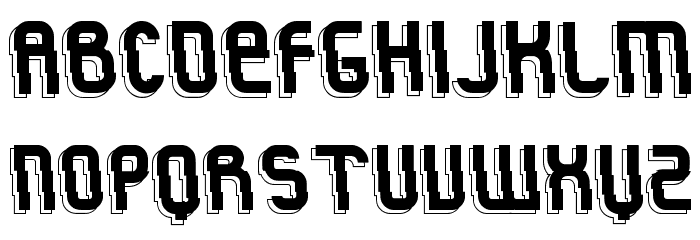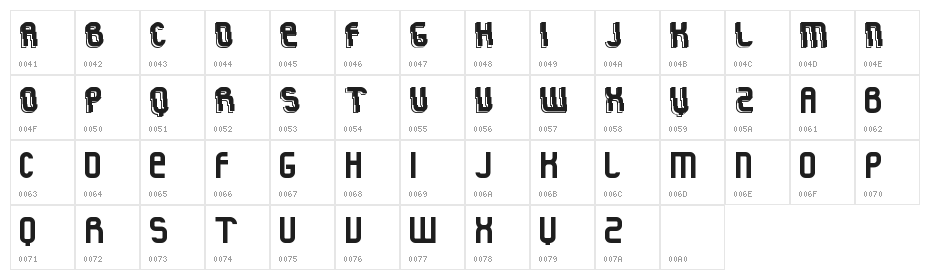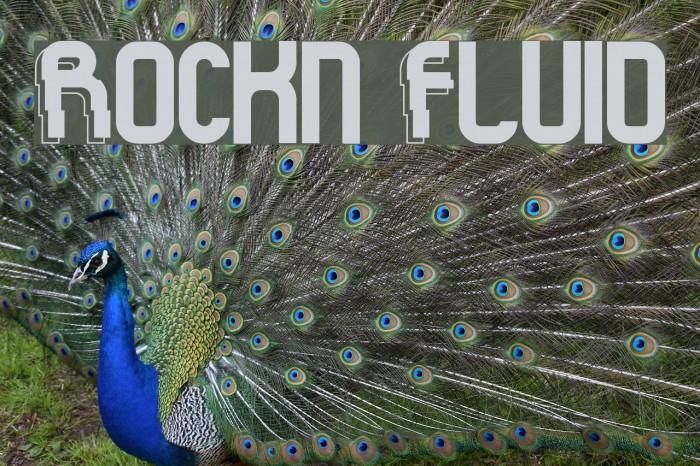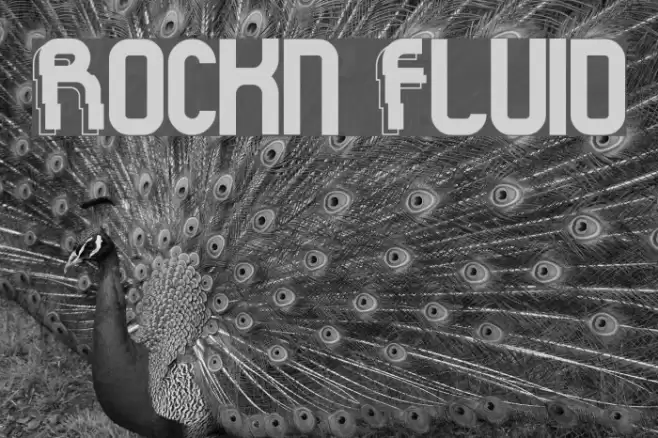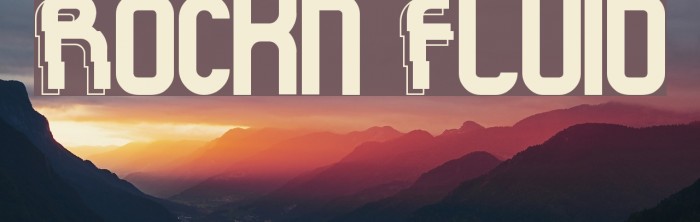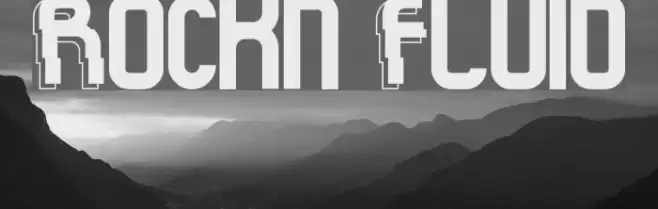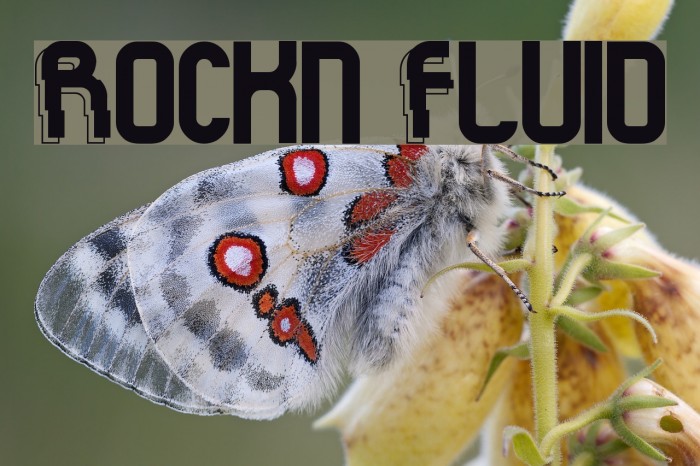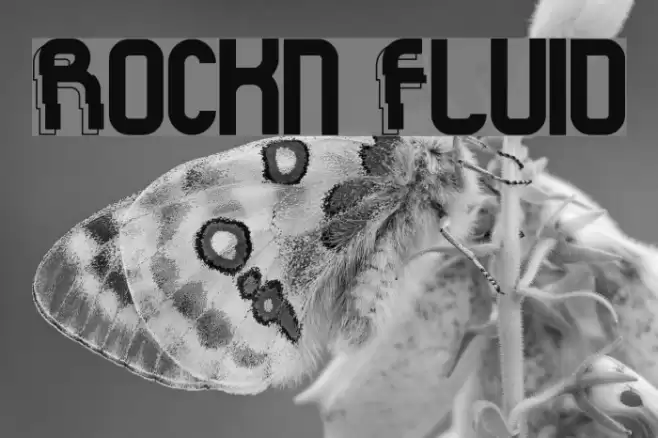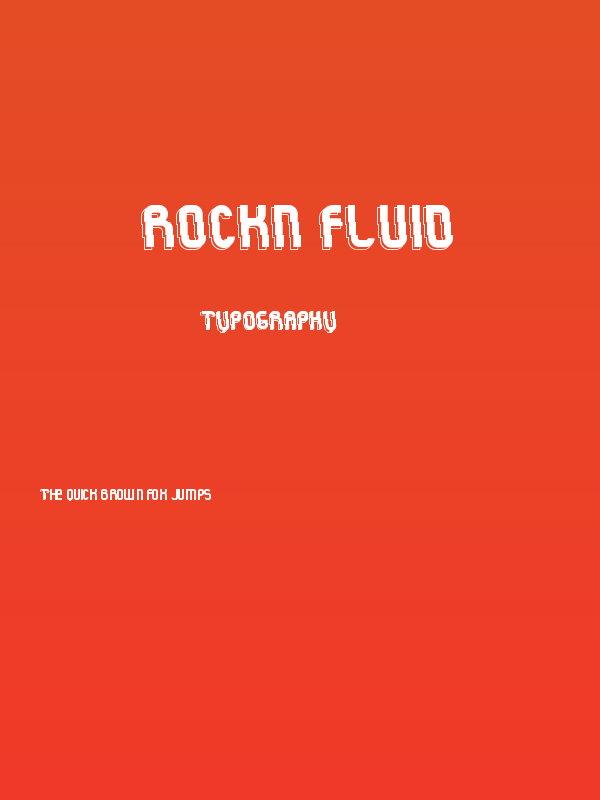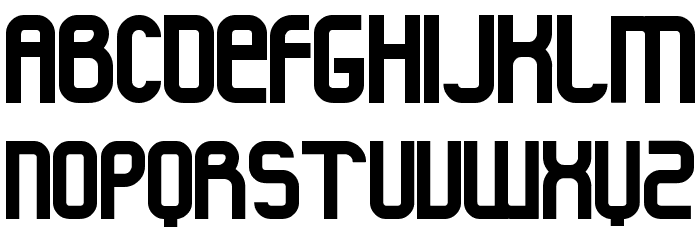
Rock'n Fluid Font
Rock'n Fluid Description
This font features a bold and dynamic style with a fluid, rock-inspired aesthetic. The uppercase letters are characterized by thick, solid strokes with a unique, wavy outline that gives a sense of movement and energy. The design is modern and eye-catching, making it suitable for projects that require a strong visual impact. The lowercase letters maintain the same boldness and fluidity, ensuring consistency across the typeface. The numbers and special characters are crafted with the same attention to detail, providing a cohesive look throughout. The font's playful yet robust design makes it ideal for creative and artistic projects.
| Proposed Projects | Ideal for music album covers, posters, branding for creative industries, and any project needing a bold, energetic typeface. |